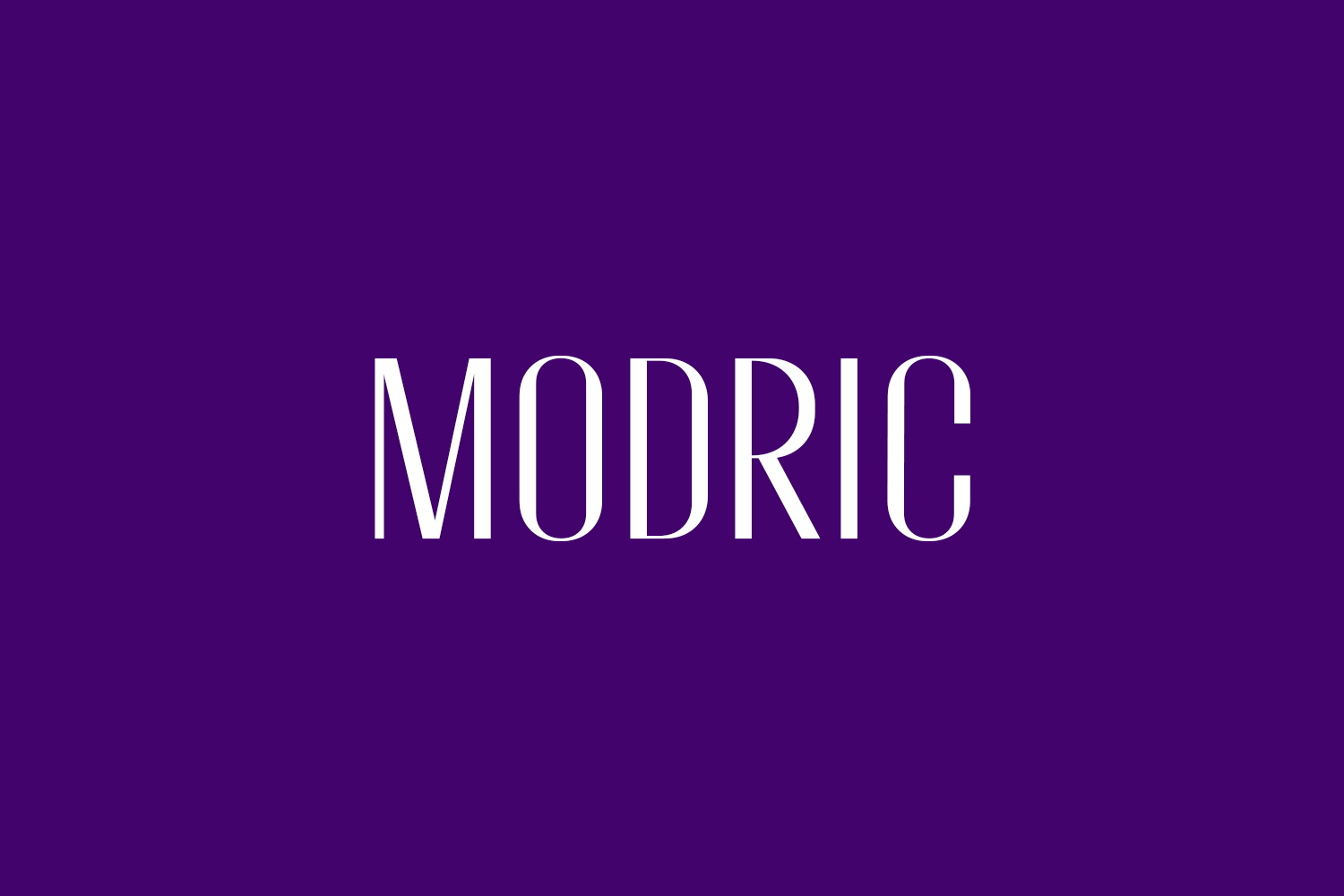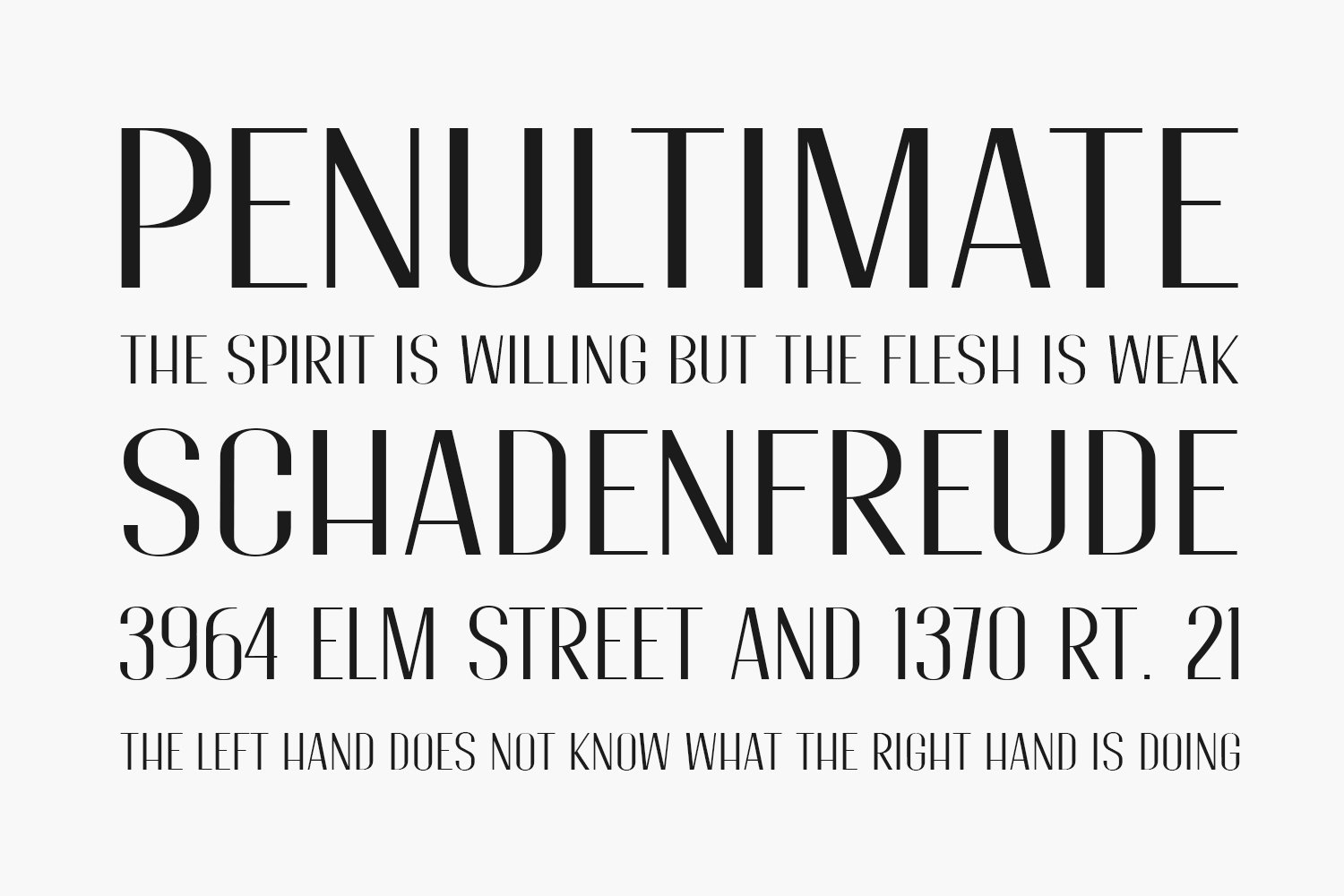
Modric Free Font s an incredibly beautiful sans serif font that features a charming condensed style. Fall in love with its modern charm. Modric Free Font was designed by Motokiwo and is free for personal use only. Please purchase the full version for commercial use.